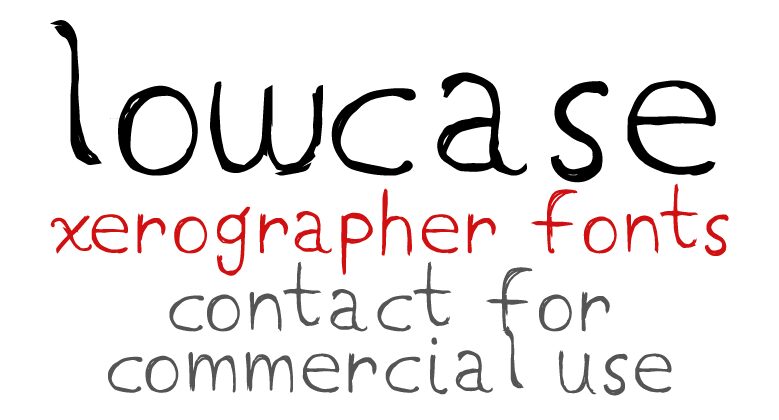
LowCase by Xerographer Fonts is a free rough handwritten script with the restless look of a hurried marker line. Its thin, uneven strokes bunch together at the joins, and tall loops and deep drops interrupt the otherwise low, loose silhouette.
The scribbled contours can become part of sketchbook illustrations or photocopied collage textures rather than sitting apart as polished type. That raw line suits underground music posters, independent magazine covers, streetwear graphics, and personal branding with an intentionally unfiltered edge. Repeated beside doodles, torn-paper shapes, or ink marks, the erratic loops help the lettering read as another drawn element.
Präsentation und Schriftprobe von LowCase
Zeichentabelle der Schriftart LowCase
Zeichentabelle von LowCase: Basis-Lateinisch, Seite 1
Glyphen der Schriftart LowCase — Basis-Lateinisch, Seite 1